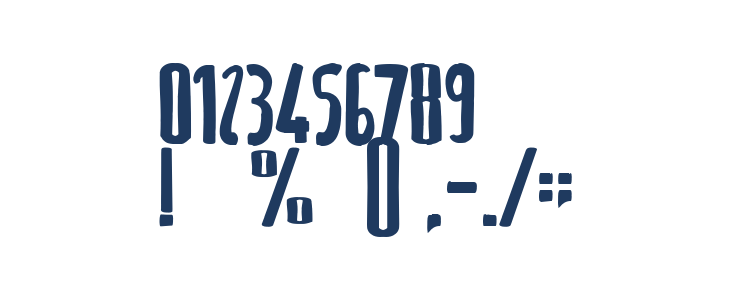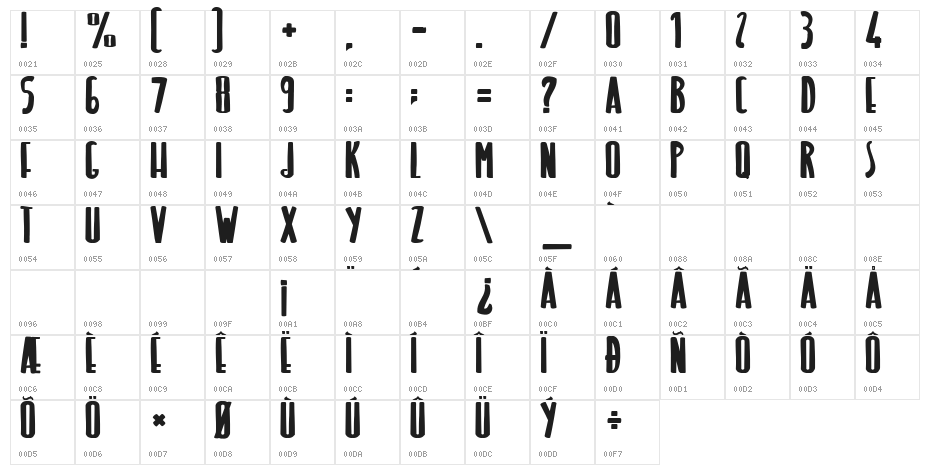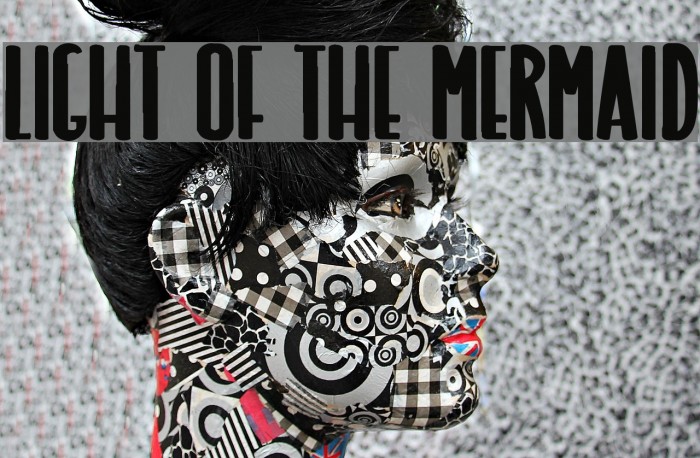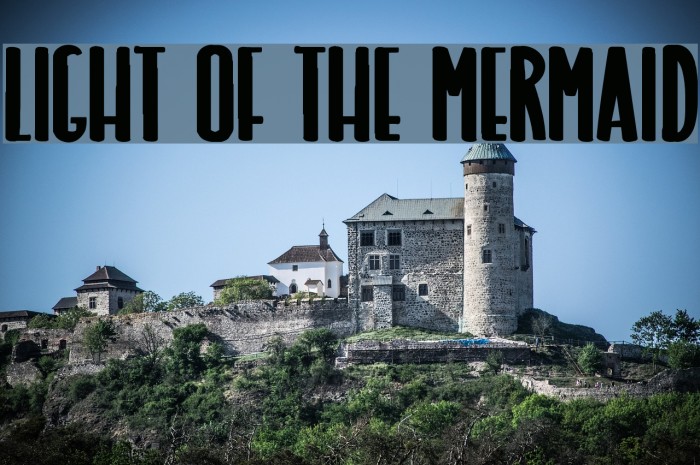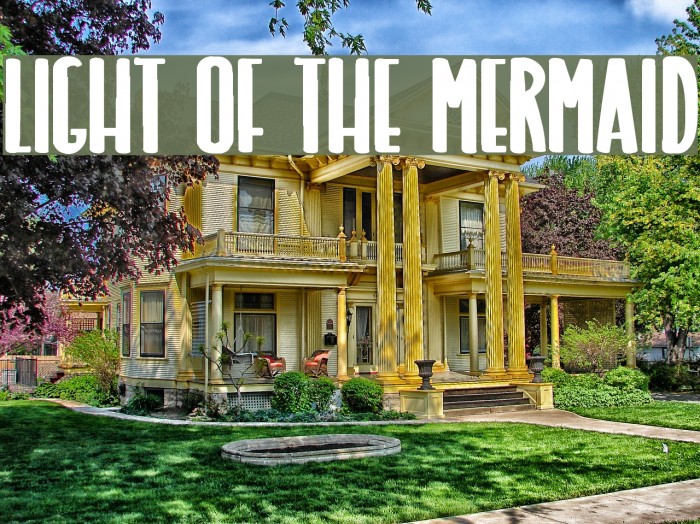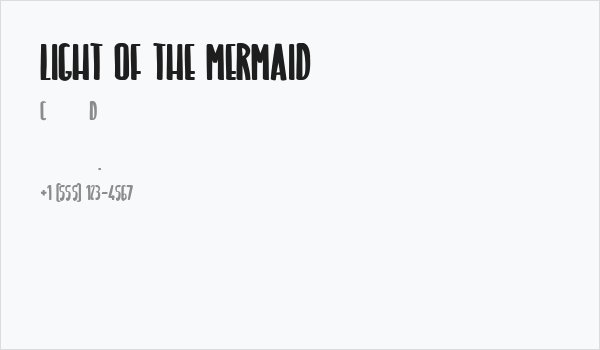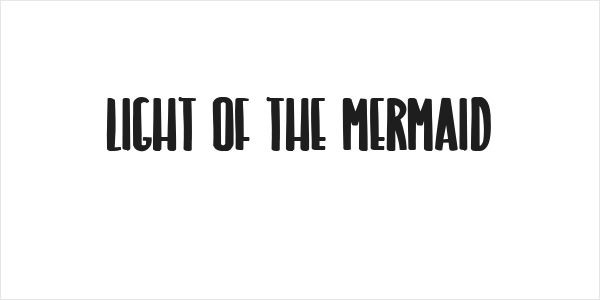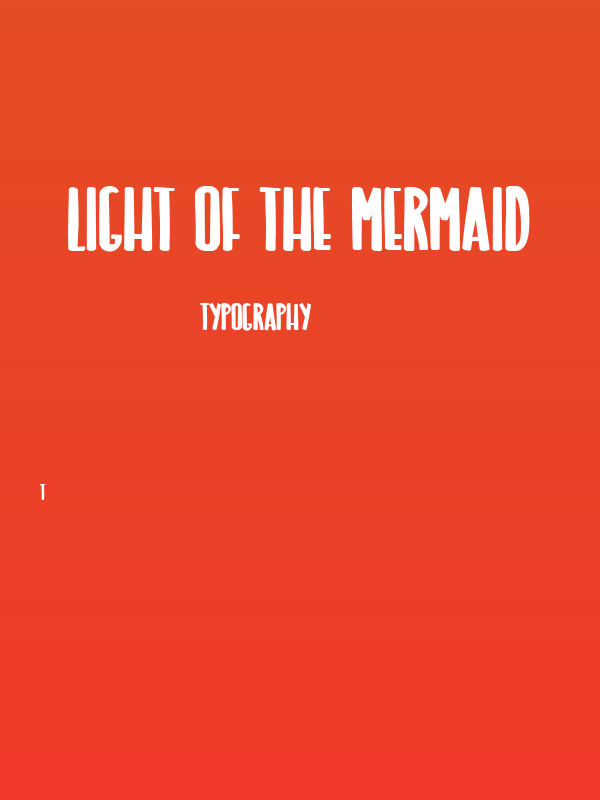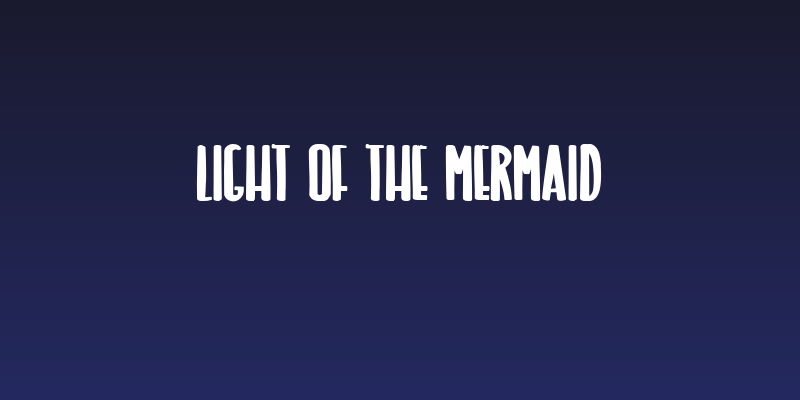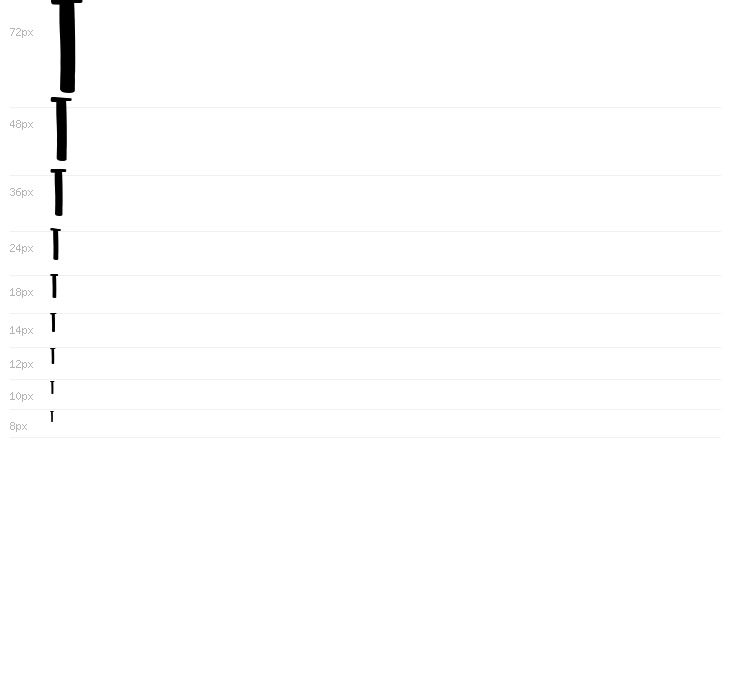
This font features a unique and whimsical design, characterized by tall, narrow letters with a playful and slightly irregular form. The strokes are bold and consistent, providing a strong visual impact. The uppercase and lowercase letters maintain a cohesive style, with slight variations that add to the font's charm. Numbers and special characters are designed to match the overall aesthetic, ensuring a harmonious appearance across all text elements. This font's distinctive style makes it ideal for creative and artistic projects.
| Proposed Projects | Ideal for creative projects such as posters, album covers, children's books, and branding materials that require a playful and artistic touch. |